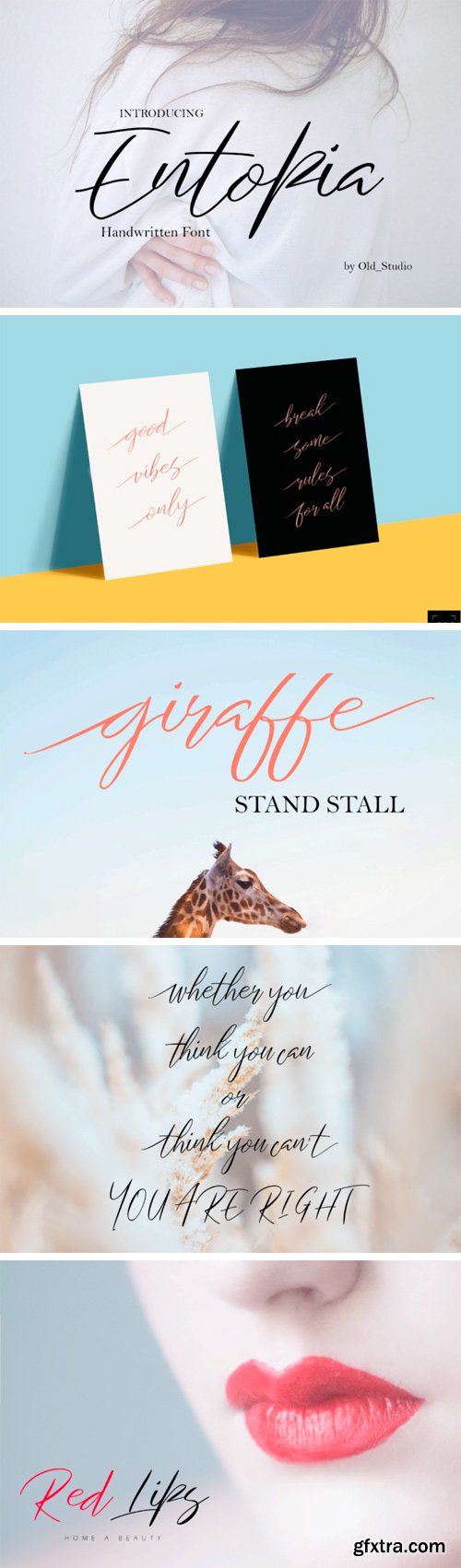
Entopia Script Typeface
Entopia is a beautiful and modern handwriting script typeface. Entopia has multiple international language support and includes a full set of lovely uppercase and lowercase letters, multilingual symbols, numerals, punctuation and ligatures.